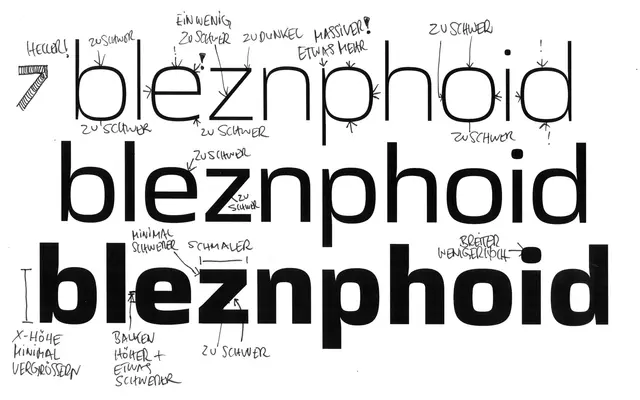
A neo-grotesque sans with superelliptic curves and open apertures, available in seven weights with italics and broad Latin coverage.
Built around superelliptic curves and open apertures, Turbine sits in the neo-grotesque tradition but offers a distinct character through its angular curve construction and low stroke contrast. Seven weights from Thin to Extrabold each come with matching italics, and the 489-glyph set covers western, central and eastern European Latin scripts with four figure styles and common currency symbols. Its screen-friendly construction makes it a practical choice for digital interfaces and branding.
Described as a neo-grotesque with superelliptic curves and open apertures; low stroke contrast and angular construction place it firmly in the neo-grotesque tradition.